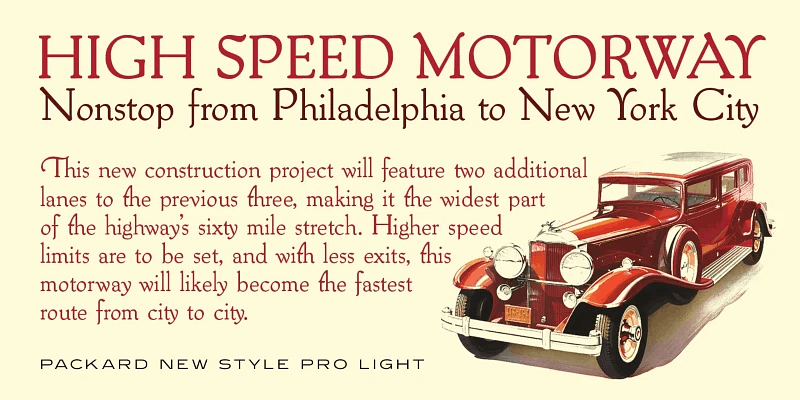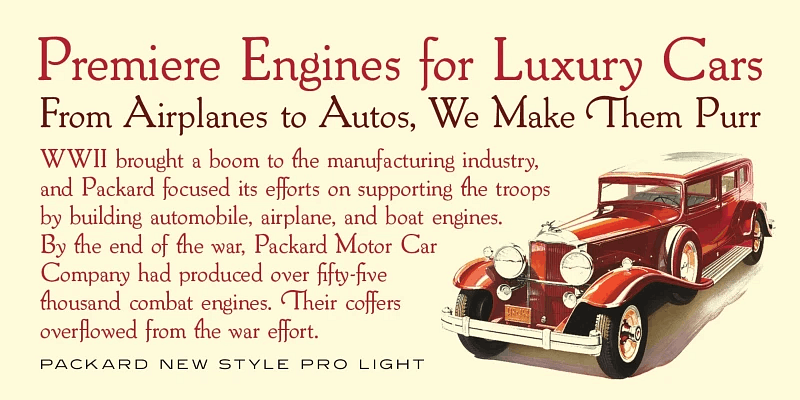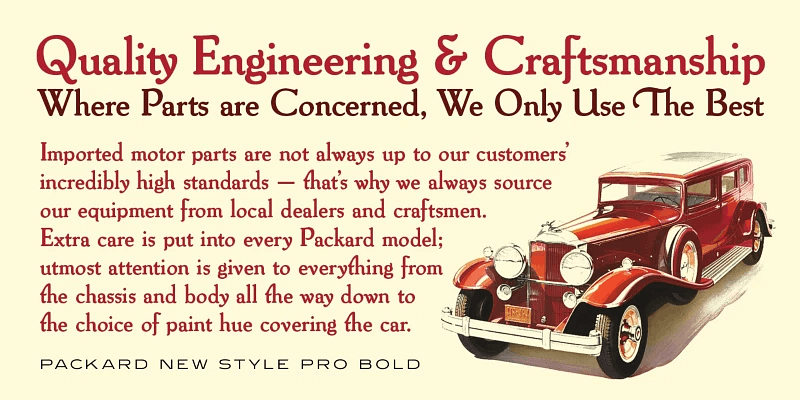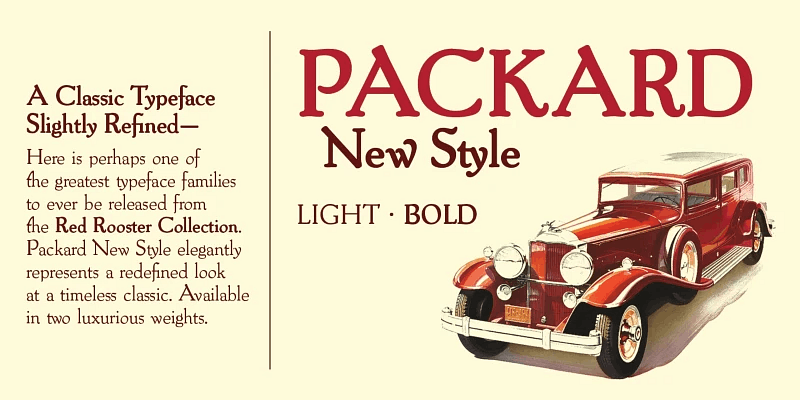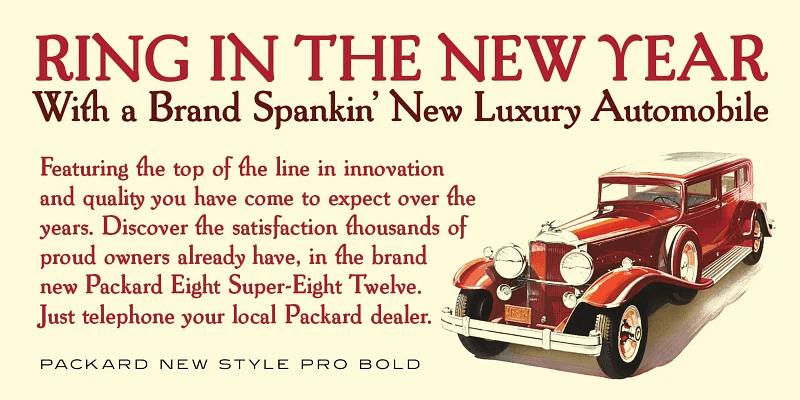
Packard New Style is a smooth old-style serif font family with a small x-height. It was created and produced by Steve Jackaman (ITF) and Ashley Muir in 2011. In 1916, Oswald Cooper of American Type Founders (ATF) created Packard Old Style for the Packard Motor Company. Morris F. Benton, also of ATF, is credited with adapting the original weight and creating an additional bold weight. When Jackaman and Muir updated Packard Old Style for the digital age, Packard New Style came to life alongside it. Packard New Style has a glorious golden-age advertising feel, and performs equally well in display and text. Several swashes were developed for added versatility and beauty.